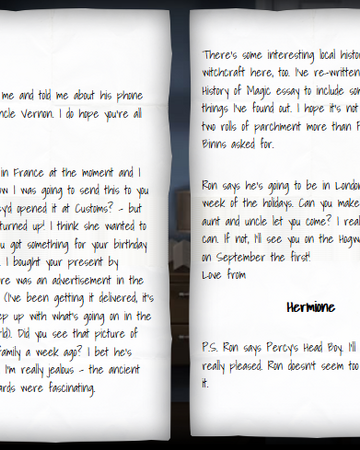
Harry Potter Letter Font
Different fonts were used on the Harry Potter book covers, for its chapter title and elsewhere The lettering used for the book title is very similar to a typeface called Hocus Pocus , which comes in four styles and each with a complete character set.
Harry potter letter font. Harry Potter Font This font is as close as it can get to the Harry Potter style of art, both in books and in adapted movies Lightningstyle edges and Gothic theme makes the Harry Potter Font looks like it is straight out of the magical world. Harry Potter Fonts A magical collection of Harry Potter fonts Even a Muggle can make decorations that mimic the style of the Wizarding World of Hogwarts. I used the official wording found on the Harry Potter Wiki The design was simple but really added to the whole party feel Fast forward a few years and after a lot of requests, I designed an even better, more official looking customizable Acceptance Letter and 1st year supply list on my Etsy store.
It is called Cochin and was invented in 1912 as a print font, based on a much older copperplate font invented in 17 th century France by Nicolas Cochin. With these harry potter font alphabet letters, harry potter font name and harry potter letter font below, may we can save among them for ideas to build your own graphic design Also look at these harry potter letter font, harry potter letter font and harry potter fonts to get more graphic file about font. Free download of HarryPotter7 Font Released in 10 by FZ Fonts and licensed for personaluse only.
Harry Potter Font This font is as close as it can get to the Harry Potter style of art, both in books and in adapted movies Lightningstyle edges and Gothic theme makes the Harry Potter Font looks like it is straight out of the magical world. Tutorial includes a Hogwarts acceptance letter printable and instructions to create a Harry Potter envelope and Hogwarts seal. A font based on Harry Potter's Acceptance Lettter to Hogwarts I scanned the acceptance letter included with the Harry Potter Film Wizardry book, and created the letters, numbers and symbols from that The font includes Capital letters, lowercase letters, numbers and some symbols Download the font by clicking on the Download button above.
Tutorial includes a Hogwarts acceptance letter printable and instructions to create a Harry Potter envelope and Hogwarts seal. Harry Potter fonts are the fonts used in the novel series Harry Potter, written by JK Rowling, a British author Different vintage fonts were used in these novels The book cover free font of Harry Potter resembles the typeface “Hocus Pocus”;. With these harry potter font alphabet letters, harry potter font name and harry potter letter font below, may we can save among them for ideas to build your own graphic design Also look at these harry potter letter font, harry potter letter font and harry potter fonts to get more graphic file about font.
A font based on the Harry Potter title logo CLICK HERE TO DOWNLOAD!. My daughter is having a Harry Potter theme birthday party next month and this tutorial has helped greatly with creating the invitations Being able to download the letter and envelop fonts was a bonus!. The free Harry Potter font is called “Harry P” and was created by an artist named Graham Meade with Phoenix Phonts, based in Australia Meade appears to have created the Harry P font family using a shareware font editor.
The one used in its chapter titles and page numbers is the “Able” font, and the handwriting of Rubeus Hagrid looks like “Felt Tip Roman”. Browse thousands of Wizarding World pictures, read our ‘Potter’ reviews or explore two decades of news archives. Harry Potter Font for Letters Download Harry Potter Font Machine Embroidery Download The Harry Potter fonts provide a surreal look and feel to them and represent a magical side of things It is commonly used to grab attention and create a fascinating and captivating effect for the reader Very often used as a common font for web designs.